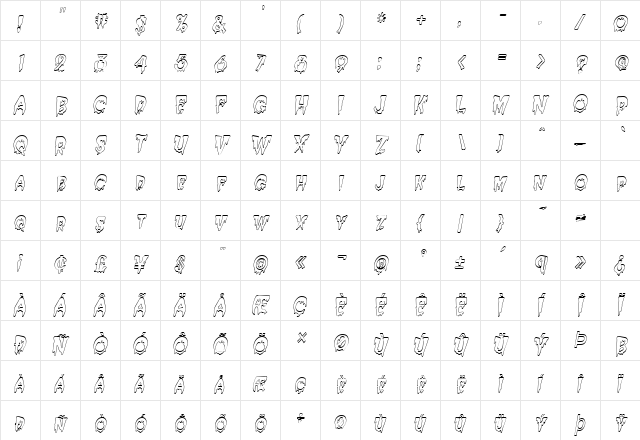
Creepy Hollow-Condensed Italic
Design Context for Creepy Hollow-Condensed Typeface
Creepy Hollow-Condensed carries an unsettling edge — its distorted letterforms are built to unsettle, perfectly suited to horror, Halloween, and dark creative work. The slanted form adds forward momentum and visual energy.
Ideal for Halloween projects, horror film titles, haunted house signage, and dark editorial design.
Font Pairing: Pair with a clean neutral sans-serif for body copy to let Creepy Hollow-Condensed's character lead without overwhelming the composition.
Pro Tip: Creepy Hollow-Condensed works best as a headline or focal element. Pair it against plain, neutral body text to amplify the contrast.